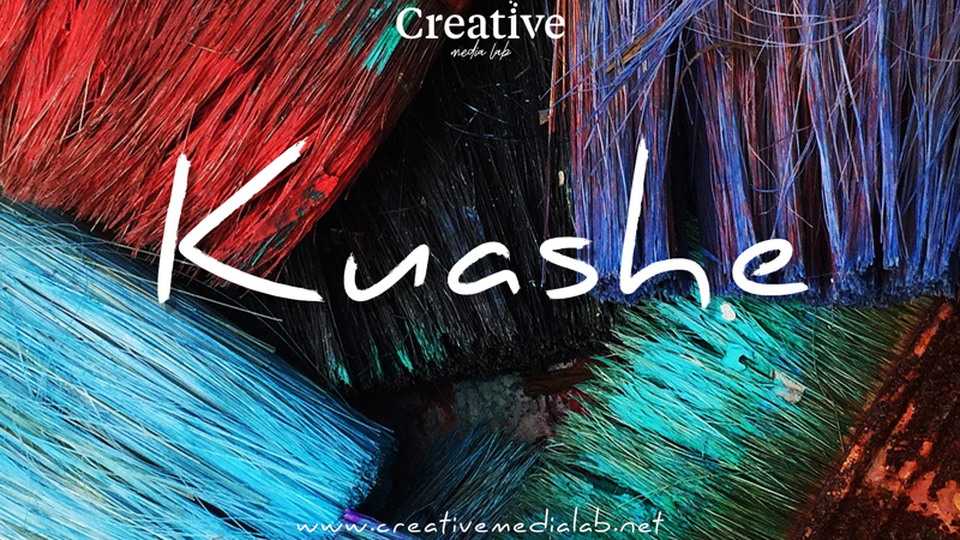
Download Kuashe font,a simple handwritten typeface. Font Kuashe is suitable for everyday designs, notes, quotes, social media, cards and more.
Designer: Creative Media Lab